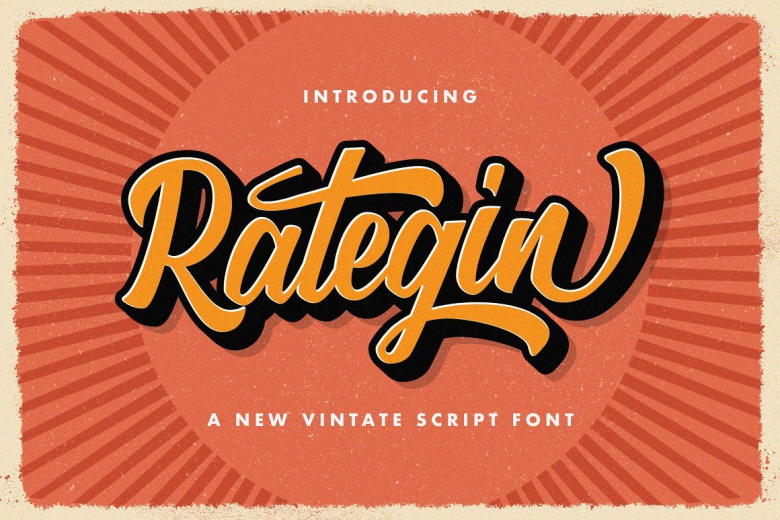
Rategin Font
Rategin Font has nostalgic feel because of its style, so the font is really match for your project with retro / vintage theme. The swashes make this typeface unique even more so you can use it to create beautiful vintage lettering in a sec. This font perfectly made to be applied especially in logo, and the other various formal forms such as invitations, labels, logos, magazines, books, fashion, make up, stationery, novels, labels or any type of advertising purpose.